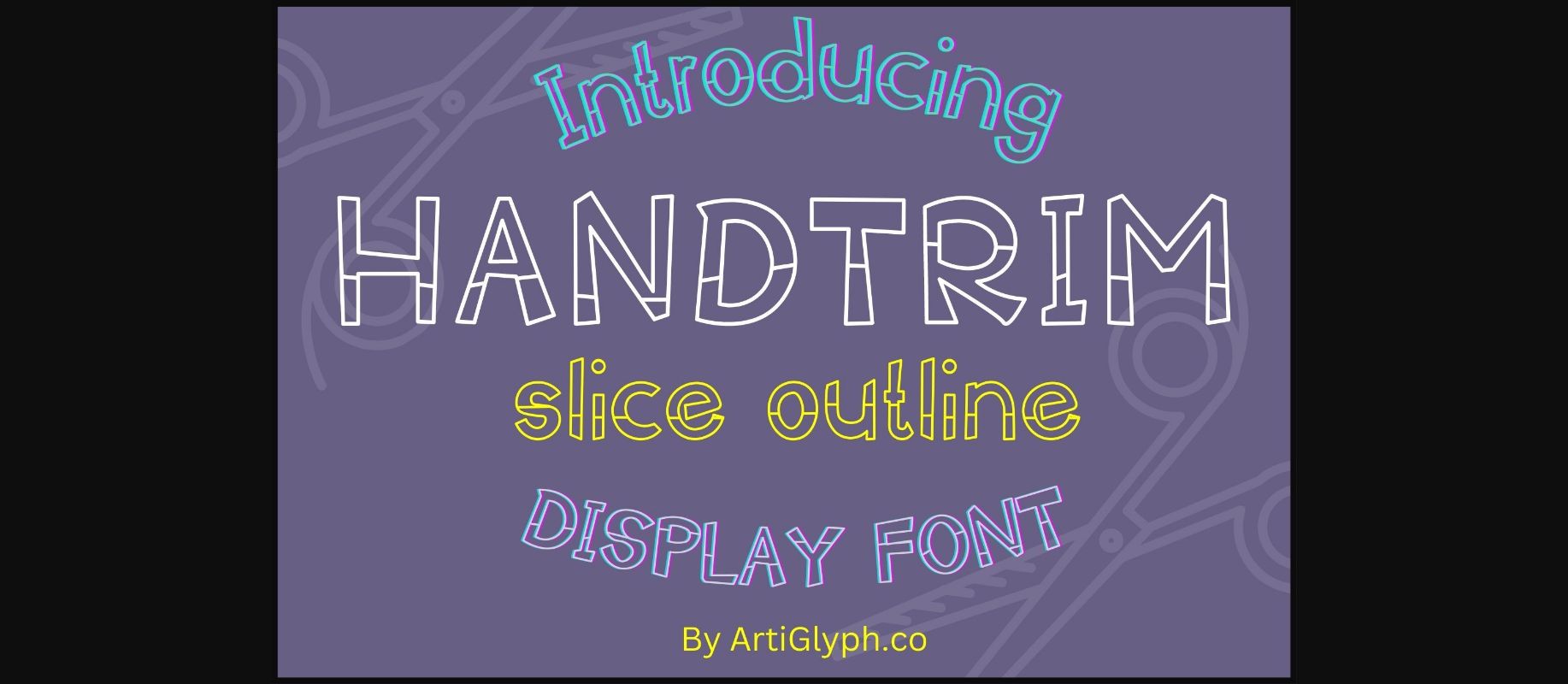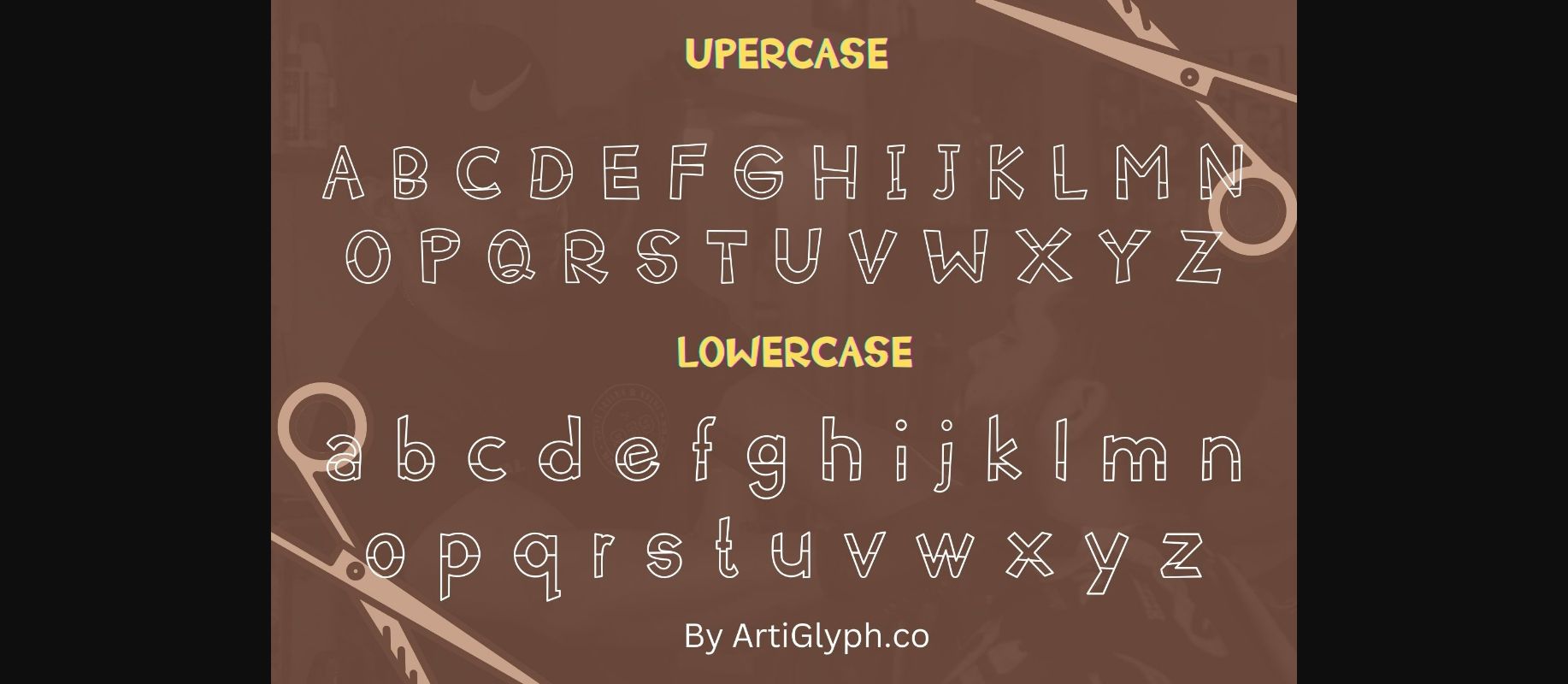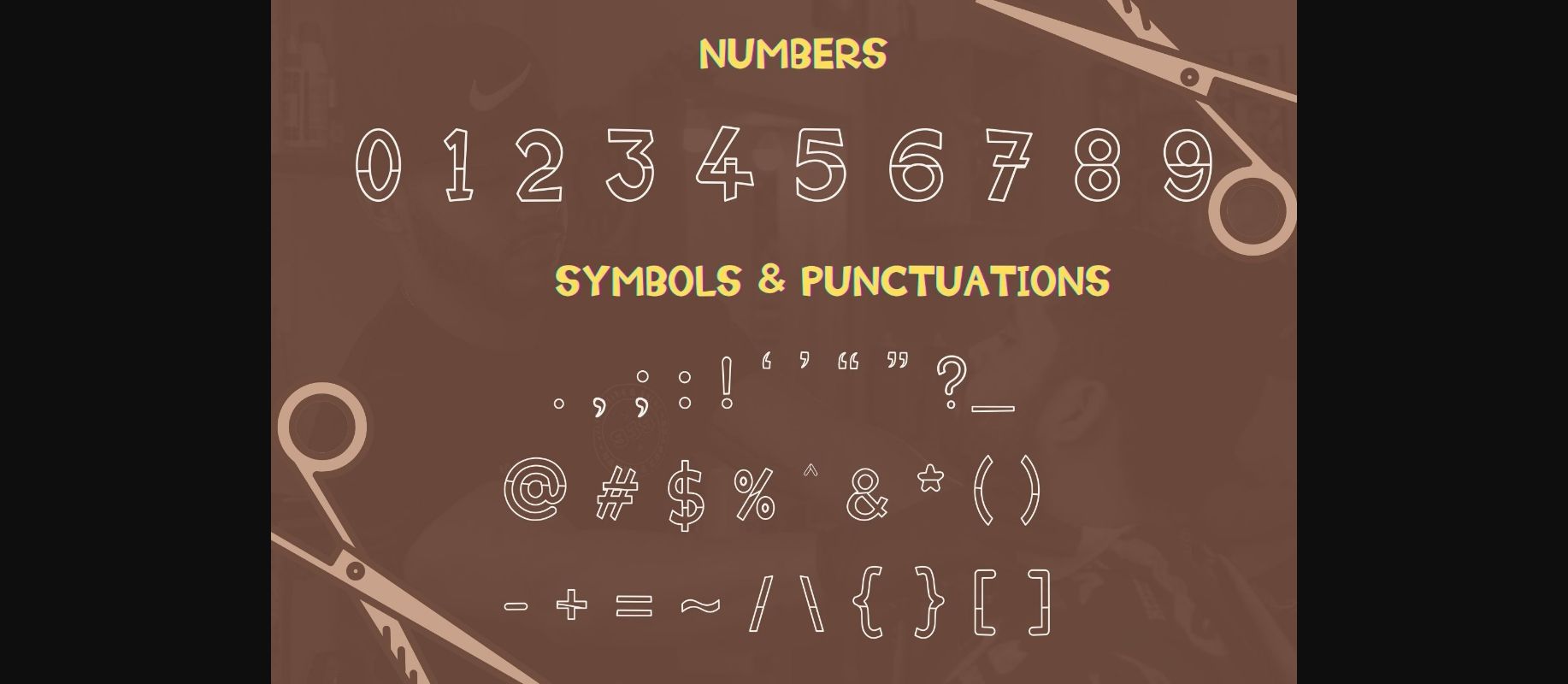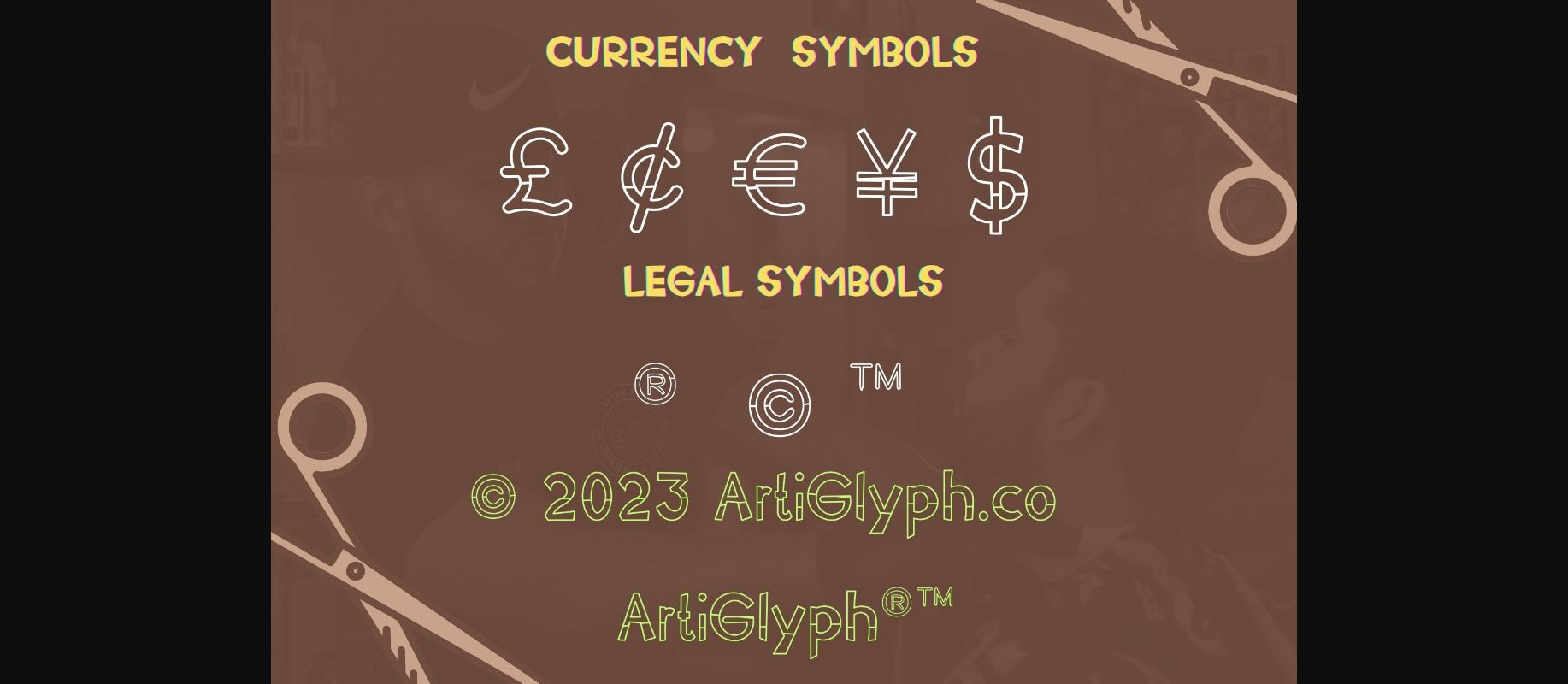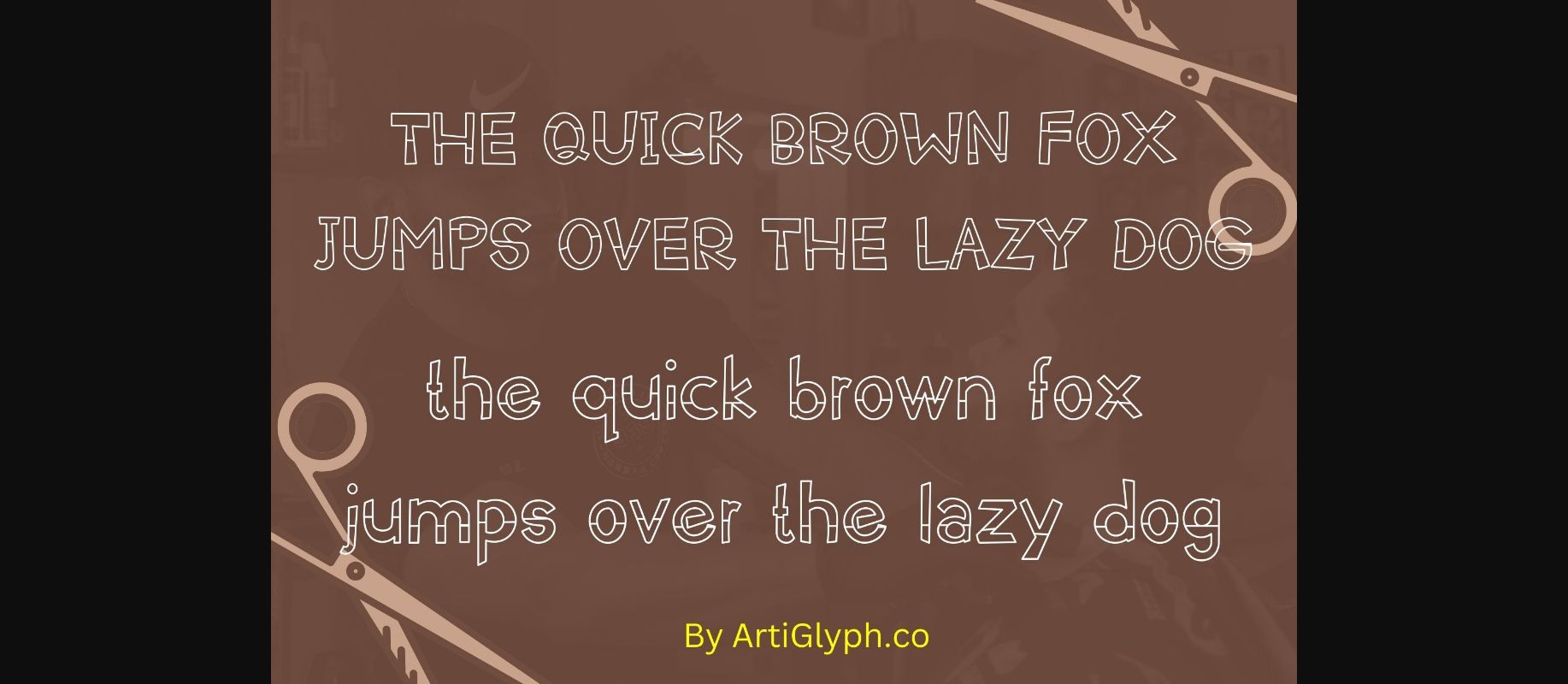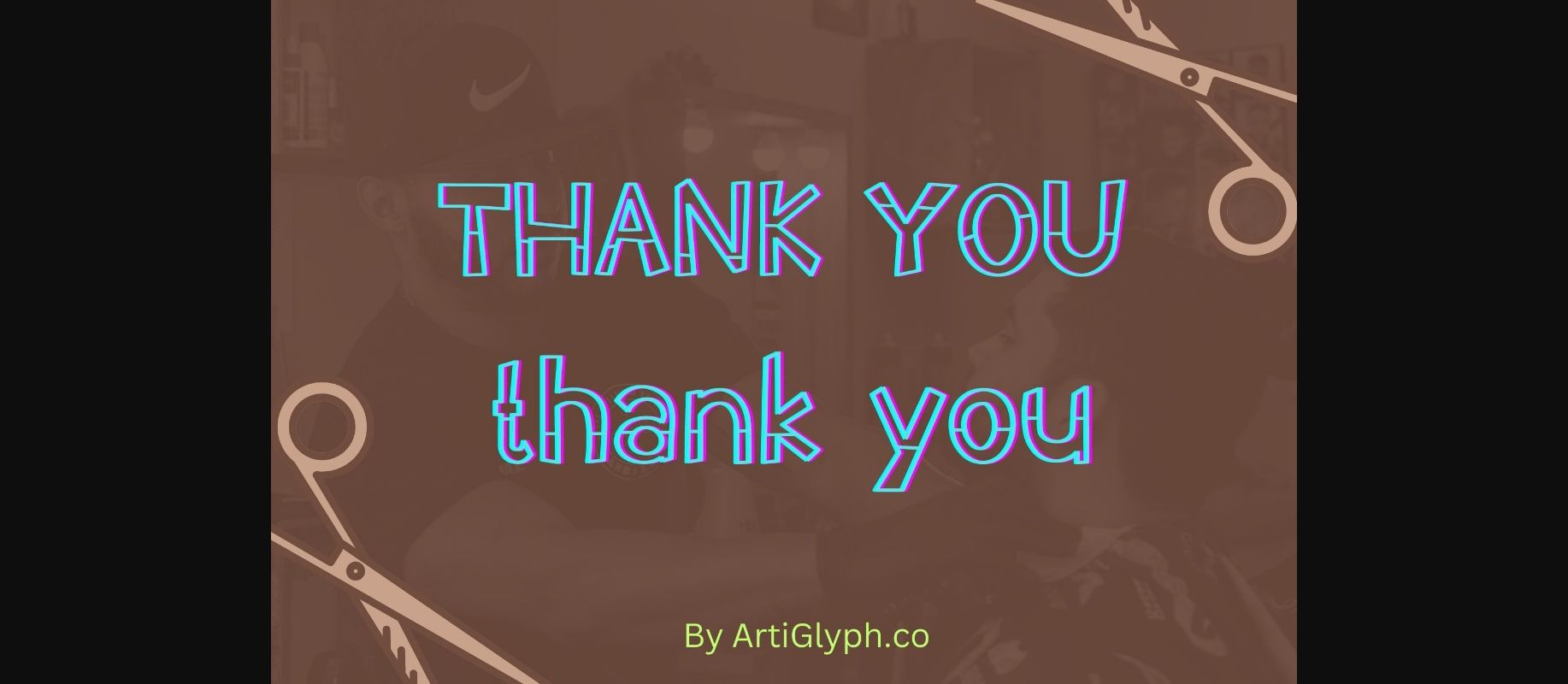
Handtrim Outline Font
About Handtrim Outline Font
HandTrim Slice is a modern decorative cute handwritten font with a fun and quirky personality. Its irregular and playful letterforms create a sense of whimsy and individuality, making it perfect for designs that require a touch of uniqueness. Its natural, handwritten style adds a charming and personal feel to any project.